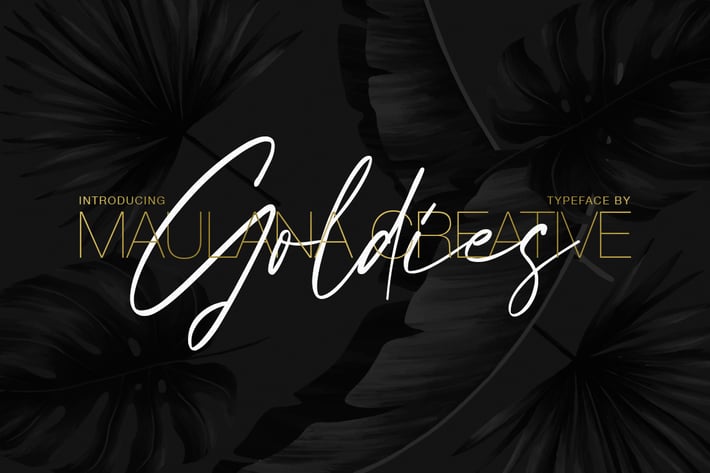
Goldies Signature Font
Give your designs an authentic handcrafted feel. "Goldies" is perfectly suited to signature, stationery, logo, typography quotes, magazine or book cover, website header, clothing, branding, packaging design and more. Included Ligatures.